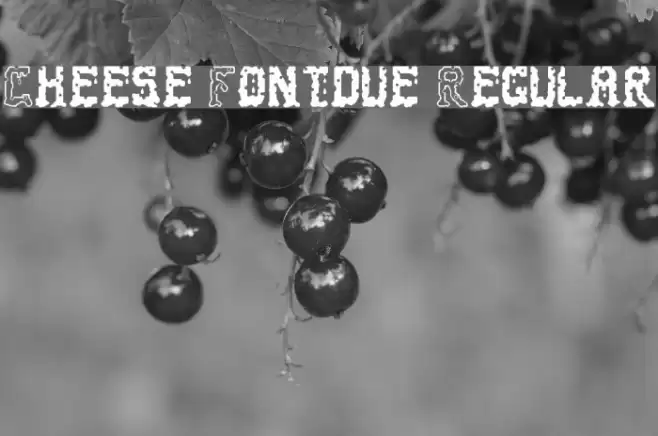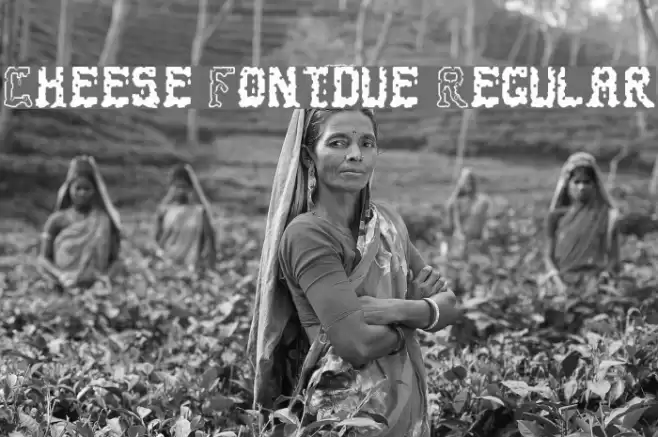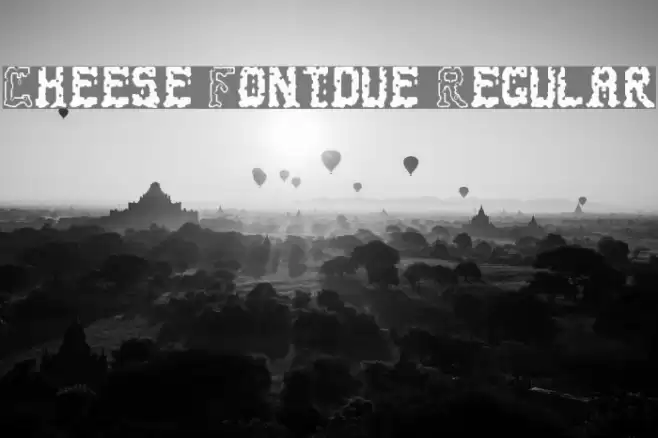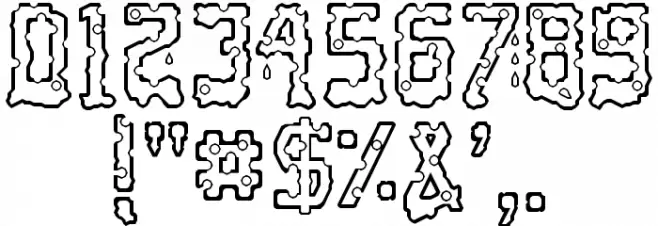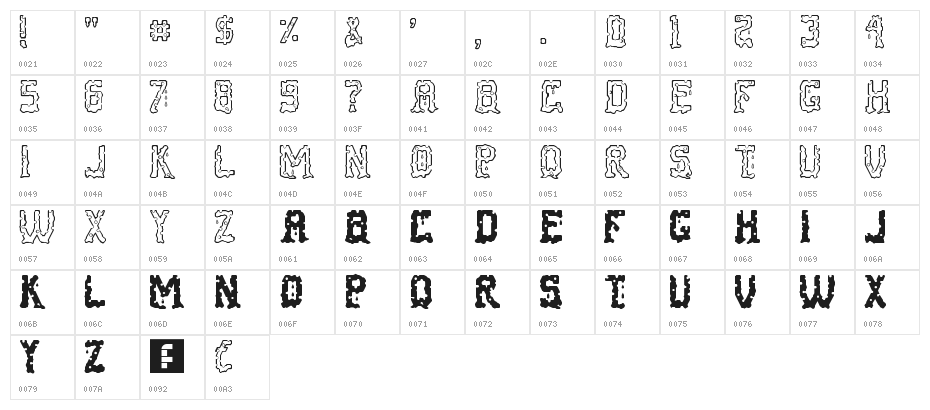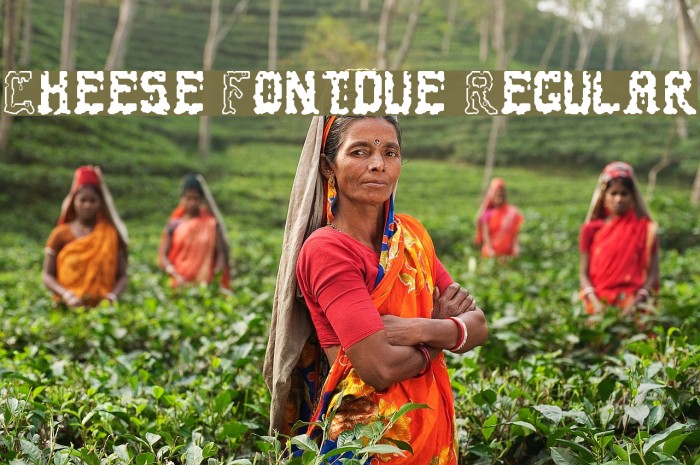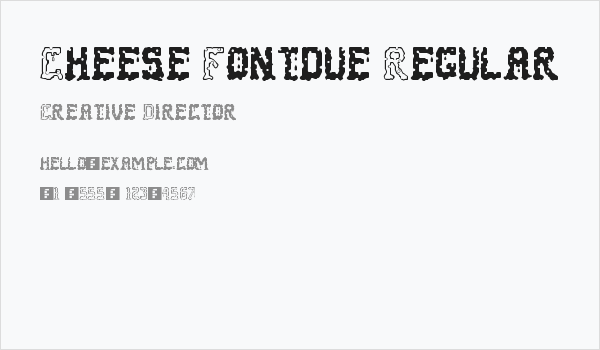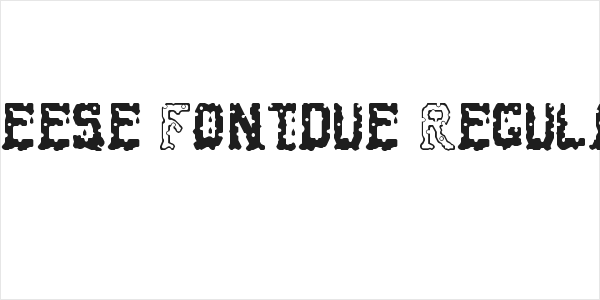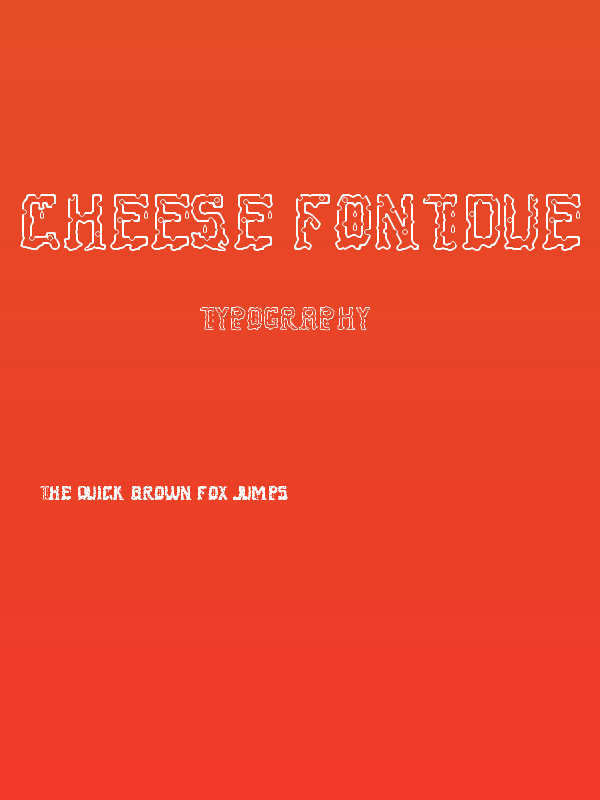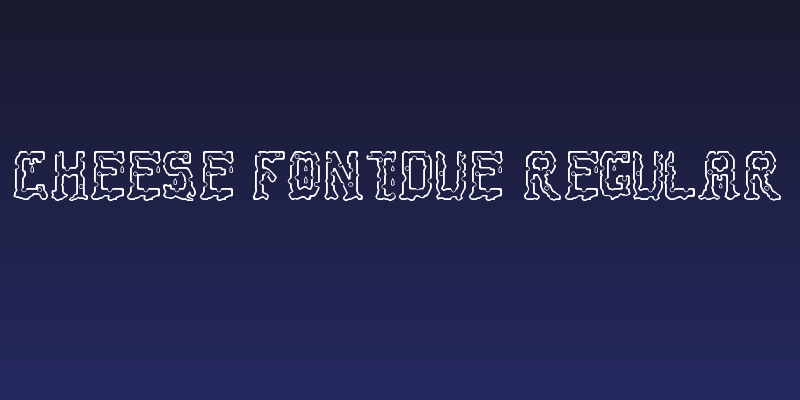
Cheese Fontdue Regular Font
Cheese Fontdue Regular Description
This font features a playful and whimsical design, reminiscent of cheese with its irregular, hole-filled patterns. The characters are bold and chunky, with a distinct outline that enhances their quirky appearance. The uppercase and lowercase letters maintain a consistent style, with each character exhibiting unique cutouts that add to the cheese-like effect. Numbers and special characters follow the same theme, making the font cohesive and visually engaging. Its decorative nature makes it ideal for projects that require a fun and eye-catching typeface.
A playful, cheese-inspired font with bold, irregular outlines and cutouts from Uncategorized fonts.
- Proposed Projects: Ideal for children's book covers, playful branding, food-related packaging, or themed event invitations.